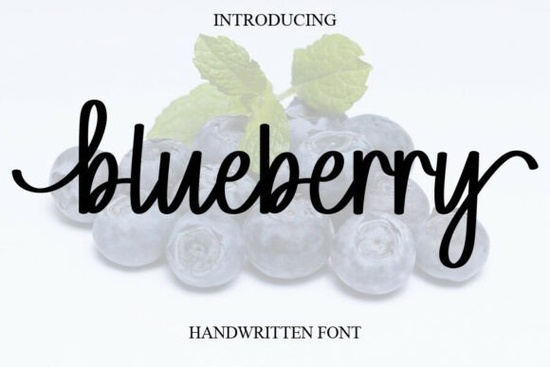
If you're looking for a handwritten font that feels personal without being overly fussy, the Blueberry Font might be exactly what your next project needs. With its tall, slim letterforms and relaxed strokes, it carries a gentle warmth that works especially well for heartfelt messages think Father’s Day cards, custom mugs, or even cozy t-shirt quotes. Unlike rigid display fonts, Blueberry keeps things casual while still offering clean, legible lines that scale nicely across both print and digital formats.
What makes Blueberry Font stand out for emotional or personal designs?
Handwritten fonts can sometimes feel either too stiff or too chaotic. Blueberry strikes a balance: it’s clearly human-made, with subtle variations in stroke width and spacing, but it doesn’t sacrifice readability. The elongated ascenders and descenders give it room to breathe, which helps when you’re working with short phrases or names common in greeting cards, gift tags, or personalized apparel.
Because of its understated charm, it pairs well with minimalist layouts. You don’t need heavy embellishments to make it shine. A simple background and generous white space often let Blueberry do the talking.
When should you use Blueberry Font?
This font shines in projects that benefit from a soft, sincere tone:
- Father’s Day crafts – Its grounded, friendly style avoids cutesy vibes while still feeling affectionate.
- Handmade greeting cards – Works beautifully for birthdays, thank-you notes, or sympathy messages.
- Print-on-demand products – Looks great on mugs, tote bags, and posters where authenticity matters.
- Small business branding – Ideal for bakeries, boutiques, or wellness brands wanting a personal touch without looking unprofessional.
It’s worth noting that Blueberry isn’t meant for body text or long paragraphs. Save it for headlines, quotes, or short labels where personality matters more than density.
How does it compare to other script fonts on Creative Fabrica?
If you’ve browsed Creative Fabrica’s script collection, you’ve probably seen options like Preppy Barbie, which leans more bubbly and energetic, or Monday Outline, which offers a modern, airy silhouette with open letterforms. Blueberry sits closer to fonts like CasualBrush in mood relaxed and organic but with cleaner lines and less brush texture.
For contrast, BohoBaby brings boho flair with swashes and decorative terminals, while Sundae Script Duo gives you two complementary styles in one pack. Blueberry doesn’t try to do everything; it focuses on delivering one consistent, warm voice which is why it’s reliable for repeat use.
Tips for using Blueberry Font effectively
To get the most out of this font, keep these practical pointers in mind:
- Avoid tight spacing. Because of its height and narrow proportions, cramming letters together can make words hard to read. Use default or slightly increased letter-spacing.
- Pair it with a neutral sans-serif. Fonts like Montserrat, Lato, or even system defaults (Helvetica, Arial) create a clean contrast without competing.
- Stick to medium weights. Blueberry doesn’t come in bold or light variants, so avoid artificially thickening it in design software it can distort the delicate strokes.
- Test at actual size. What looks charming at 72pt might become fragile at 12pt. Always preview your design at the final output size.
And remember: handwritten fonts like Blueberry work best when they feel intentional, not decorative. Let the message lead, and use the font to support not overshadow the sentiment.
Ready to try it?
If you’re creating something that calls for sincerity over flash whether it’s a Father’s Day card for Dad, a quote poster for a friend, or a small-batch product label Blueberry Font offers a quiet confidence that resonates. It’s not loud, but it’s memorable in its simplicity.